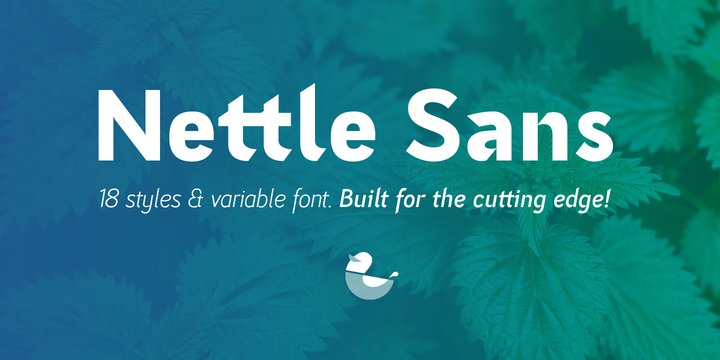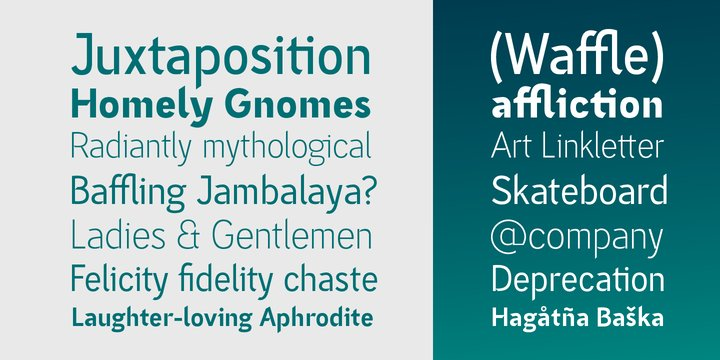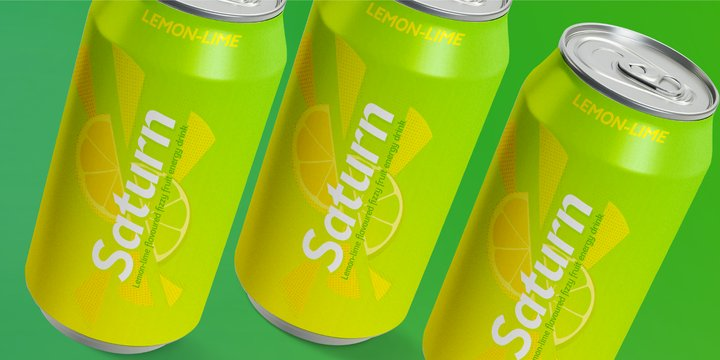
Nettle Sans Font
Nettle SansInfluenced by Blackletter type and highway fonts, the Nettle Sans font family sets out to be both a quirky and confident headline font (at the heavier weights), and an easily legible body font for print or screen (at the lighter weights).
Careful attention was taken in choosing distinct shapes for each letter to maximise legibility, and to balance a daring experimental form with function. Through its brutal angled cuts out of the ends of tapered links, ink-traps, ascenders and descenders, Nettle Sans’ defining motif offers a visual language that communicates speed, efficiency, advancement and the “cutting edge”.